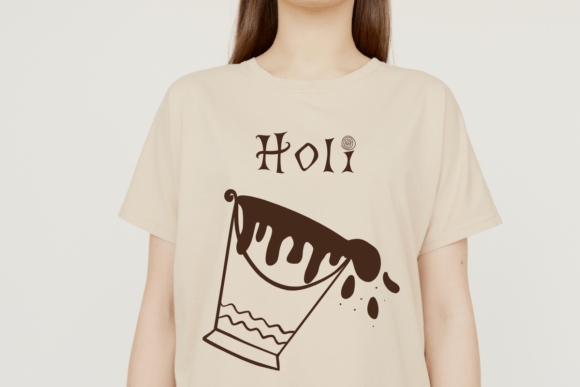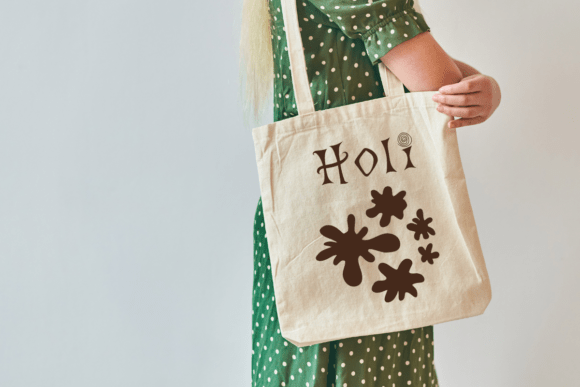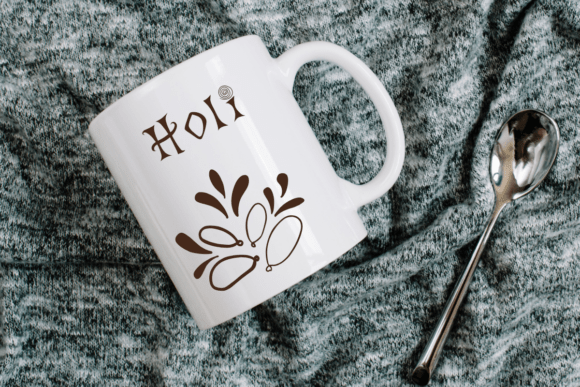
Introduction to Happy Holi Font
As a designer, have you ever found yourself stuck in a creative rut, searching for the perfect element to bring a project to life? I recall the moment when I stumbled upon the Happy Holi Font, and it was love at first sight. The vibrant colors and playful characters instantly sparked ideas for a wedding invitation design I was working on. It was as if the font was speaking to me, saying, “Add a pop of color and whimsy to your design!” And just like that, my creative project transformed into something truly special.
The Happy Holi Font is more than just a design resource – it’s a key to unlocking your full creative potential. With its unique dingbats characters and transparent background, this font offers endless possibilities for designers looking to create high-quality, eye-catching designs. Whether you’re working on a DIY project, crafting decorations, or designing logos, the Happy Holi Font is sure to bring a smile to your face and a touch of magic to your work.
Key Features of Happy Holi Font
- Unique and colorful design perfect for creative projects and celebrations.
Honest Review: Happy Holi Font
I recently stumbled upon the Happy Holi Font, a vibrant and colorful design resource that’s perfect for creative projects. At first glance, I was drawn to its playful and energetic vibe. Upon closer inspection, I was impressed by the high quality of the font, which is available for free download. This is a huge plus in my book, as it makes it accessible to designers of all levels.
What works well is the transparent background, which allows the font to shine on its own. The font itself is a unique blend of traditional and modern styles, making it versatile and suitable for a wide range of applications. The download process was seamless, and the font files were well-organized and easy to use.
- ✨ Unique and playful design
- ✨ High quality and crisp lines
However, I did encounter a few limitations. The font is only available in a single weight, which might limit its use in certain situations. Additionally, the font’s design is quite bold, so it may not be suitable for all types of creative projects.
Overall, I’m impressed with the Happy Holi Font. While it may have some limitations, its unique design and high quality make it a valuable addition to any designer’s toolkit. I’d definitely recommend it for any creative project that requires a vibrant and eye-catching font.
Tips for Getting the Most Out of Happy Holi Font
For a high-quality design, use Happy Holi Font on a transparent background to create a stunning effect.
Happy Holi Font is perfect for creative projects that require a unique and colorful touch, such as:
- Party invitations
- Wedding decorations